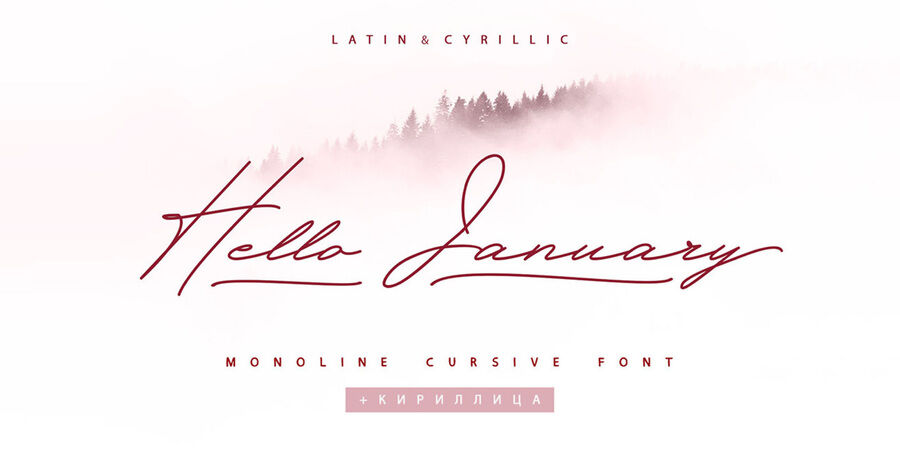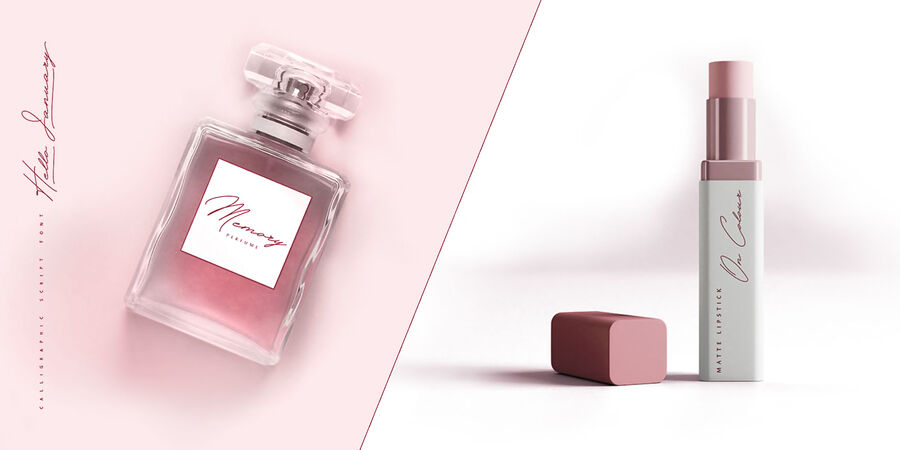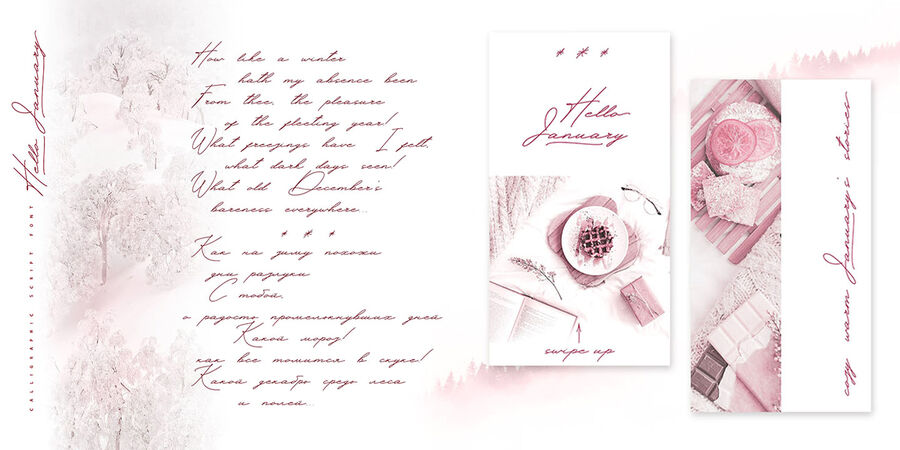
Hello January (2 fonts)
About Hello JanuaryThis pretty monoline cursive font pair will look gorgeous on all your designs, wedding stationery, love stories, branding materials, monoline logos, pretty teenage stickers, business and wedding cards, calligraphy Insta quotes, elegant fashion sketches, calligraphy love monograms and much more. Hello January Script font contain Latin and Cyrillic glyphs. There is graceful cursive calligraphic script font, plus a Symbols font with 36 lovely hand-drawn swashes and illustrations! Hello January Script font contains a full set of uppercase and lowercase letters and can be used to create a handwritten calligraphy look. Combine and arrange swashes and illustrations to create your own designs and make borders, frames, dividers, logos and more (just use A-Z or a-z keys in the included Hello January Symbols font). A different symbol is assigned to every uppercase or lowercase standard character so you do not need graphics software just simply type the letter you need. Multilingual Support for 31 languages including Cyrillic glyphs support for Russian, Belorussian, Bulgarian and Ukrainian languages. The typeface was designed by Iryna Dvilyuk in 2020.
Associations for font family Hello JanuaryTypeface personality and character:
informal, glad, fresh, thin, air, flying, fast, dynamic, inspired, lyrical, sensual, emotional, musical, poetic, artistic, passionate, creative, dashing, cheeky, daring, flexible, original, freewheeling, cutting, picturesque, alive, temperamental, active, impetuous, transparent, high-speed, quick, running, sweeping, spring, slovenly, distinctive, vernacular, festive, wedding, romantic, rhythmic, epistolary, girlish, domestic, vegetable, naive, children, cute, home